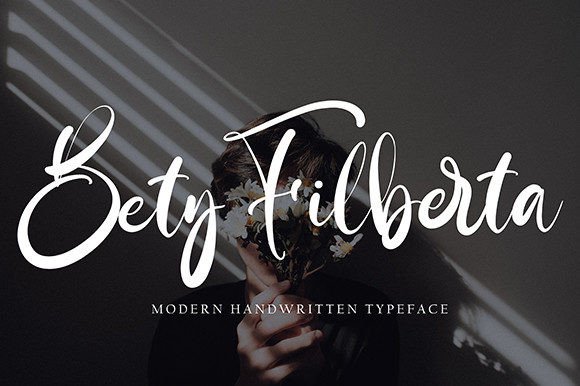
Introducing Bety Filberta Font, the captivating script that will ignite your creative spirit and elevate your designs to new heights.
Indulge in the charm of this modern handwritten script, meticulously crafted by the talented Pineungtype & Missinklab. Each stroke flows effortlessly, exuding an air of sophistication and elegance.
With Bety Filberta Font, your words will dance across the page, captivating your audience with their allure. Its versatile style seamlessly adapts to a myriad of projects, making it an indispensable tool for any designer seeking to make a lasting impression.
Embrace the magic of Bety Filberta Font and witness the transformation of your creations. From wedding invitations that whisper romance to business cards that command attention, this font will infuse your designs with a touch of timeless beauty.
Dive into the world of possibilities with Bety Filberta Font. Let your imagination soar and experience the joy of effortless elegance.
Unleash the power of handcrafted typography and elevate your designs to new heights with Bety Filberta Font.